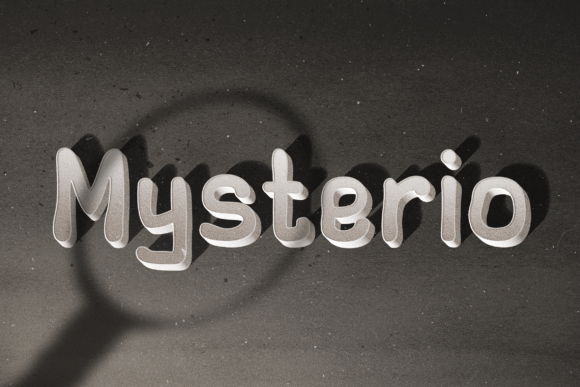
Behold the enigma that is Mysterio, the display font that sends shivers down your spine while igniting an insatiable curiosity. Immerse yourself in the world of detectives and mystery, where children's books come alive with intrigue, online games transport you to heart-pounding adventures, and event posters tease you with secrets waiting to be unveiled.
Unleash the power of Mysterio on your school supplies, letting your imagination run wild as you create mind-bending posters that capture the essence of the unknown. Transform your movie titles into cinematic masterpieces that hint at the thrill and suspense that awaits. Let your YouTube covers and thumbnails become tantalizing gateways into worlds of mystery and intrigue, drawing viewers in with a promise of untold stories.
With Mysterio, your social media pages will radiate an aura of allure, captivating your audience with cryptic messages and enigmatic imagery. With every stroke of this font, you'll weave a web of intrigue that keeps your followers enthralled.
But Mysterio isn't just a font; it's an experience. A journey into the depths of the unknown, where whispers of forgotten tales dance in the shadows. It's a font that challenges you to explore the unexplored, to unravel the enigmatic, and to discover the hidden truths that lie beneath the surface.
Embrace the allure of Mysterio and unlock a world of endless possibilities. Let your creativity flourish as you craft designs that captivate, intrigue, and leave an indelible mark on the hearts and minds of your audience.